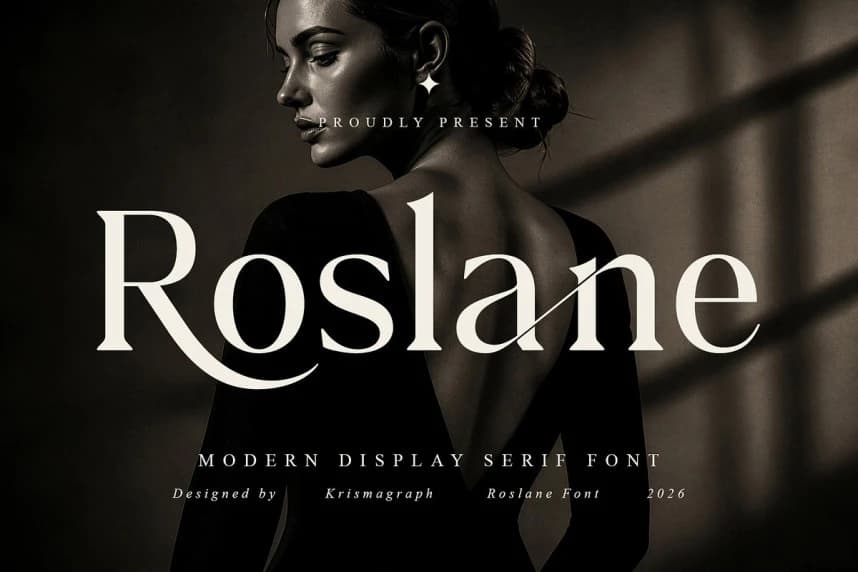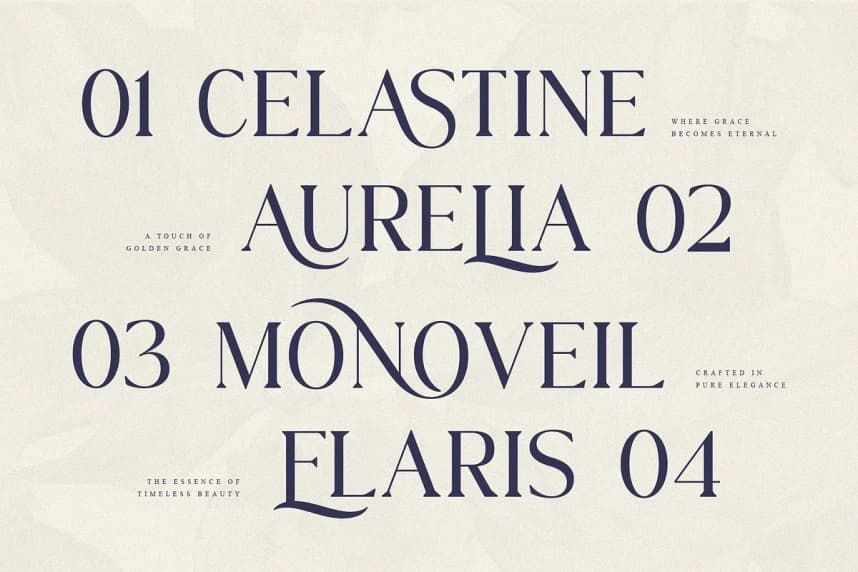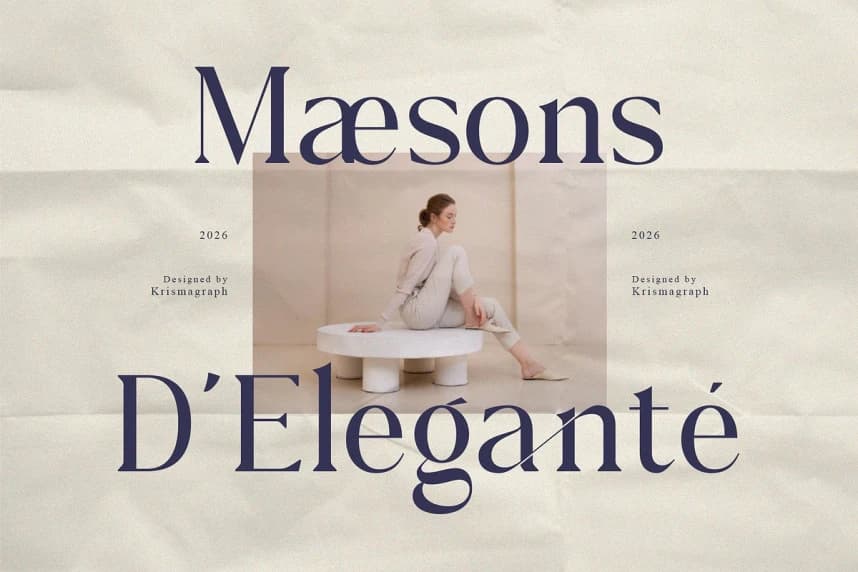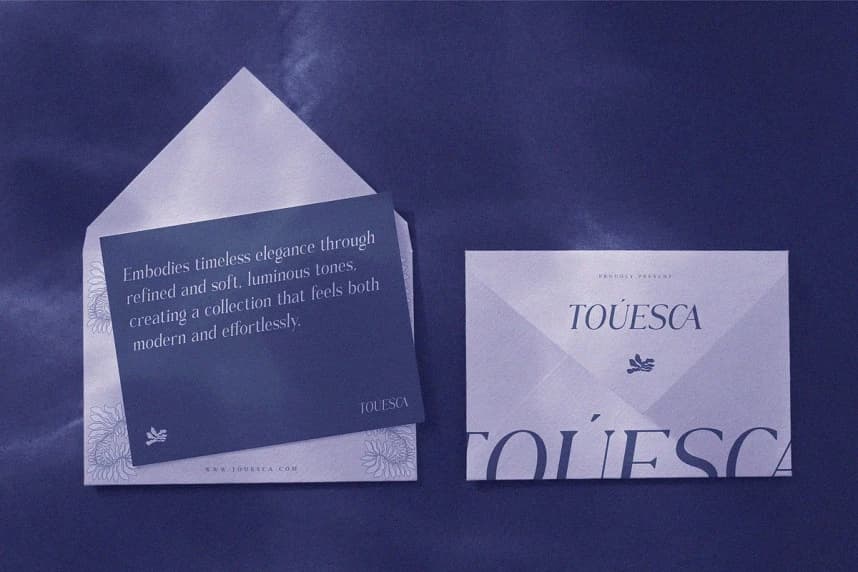
Roslane Font
Roslane Font is a modern high-fashion display serif that embodies quiet confidence and effortless grace. Drawing on the lineage of great editorial serifs, it refines those traditions with sharper contrast, more dramatic swells, and a contemporary silhouette that feels entirely of this moment.